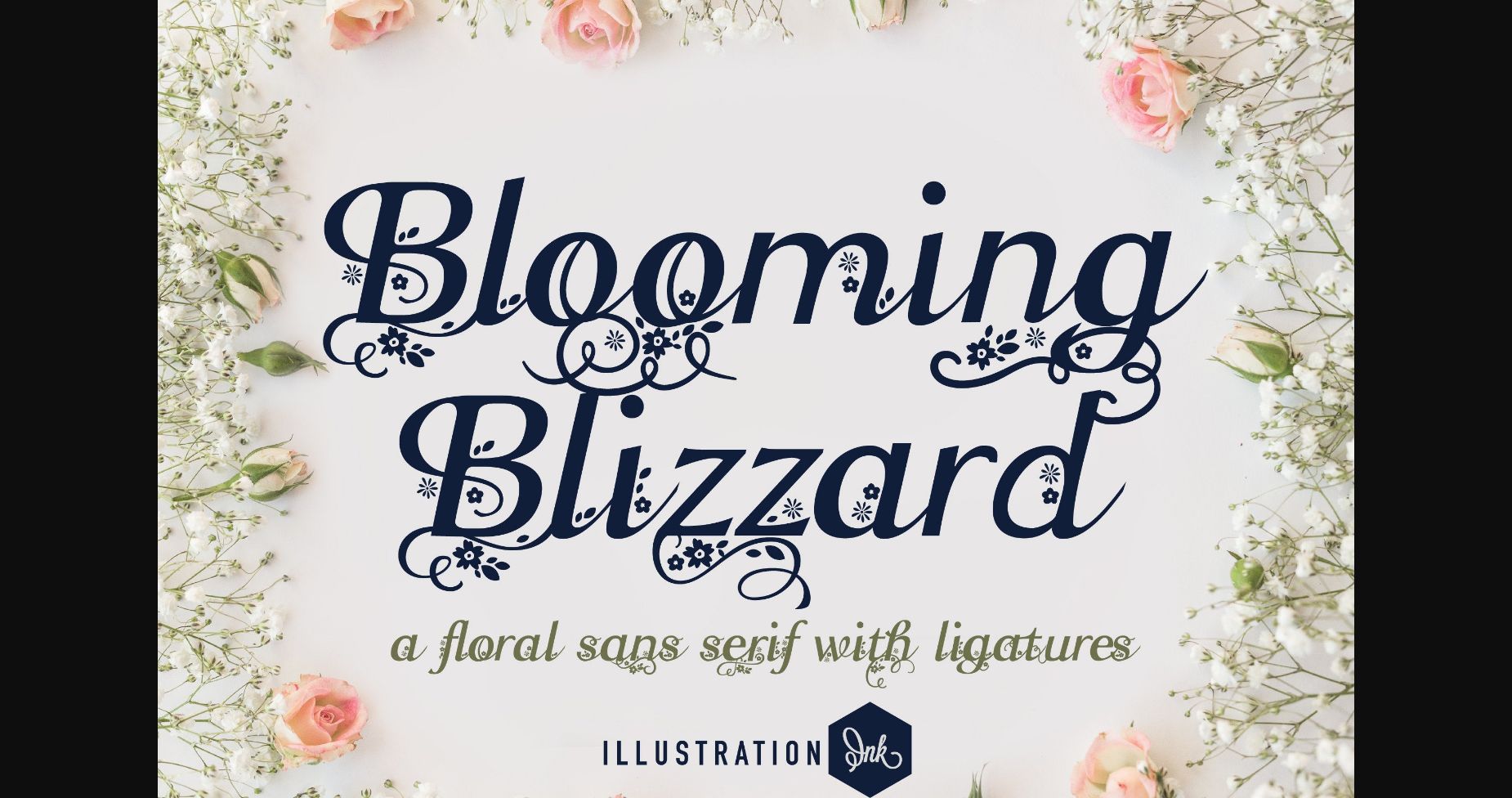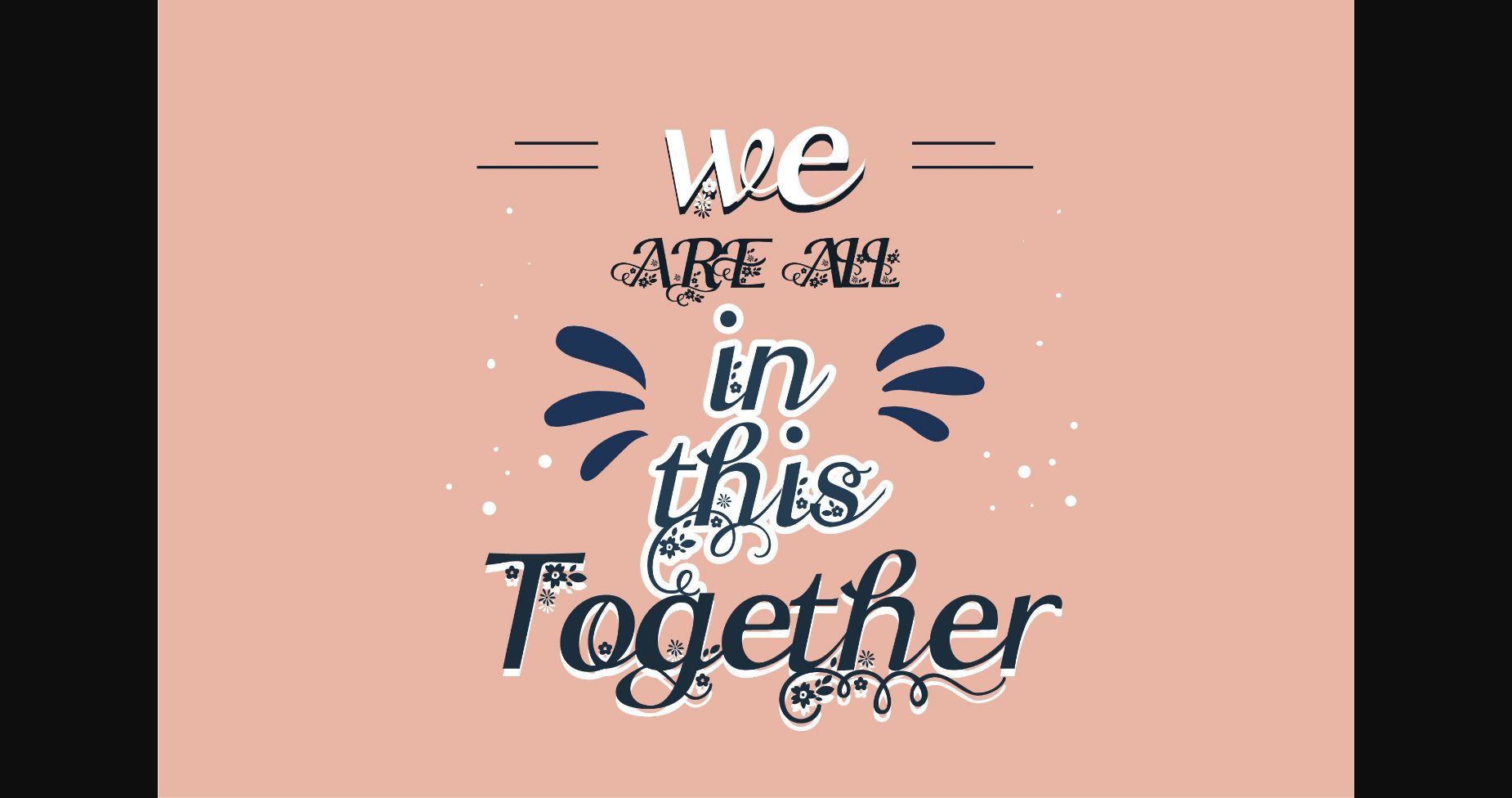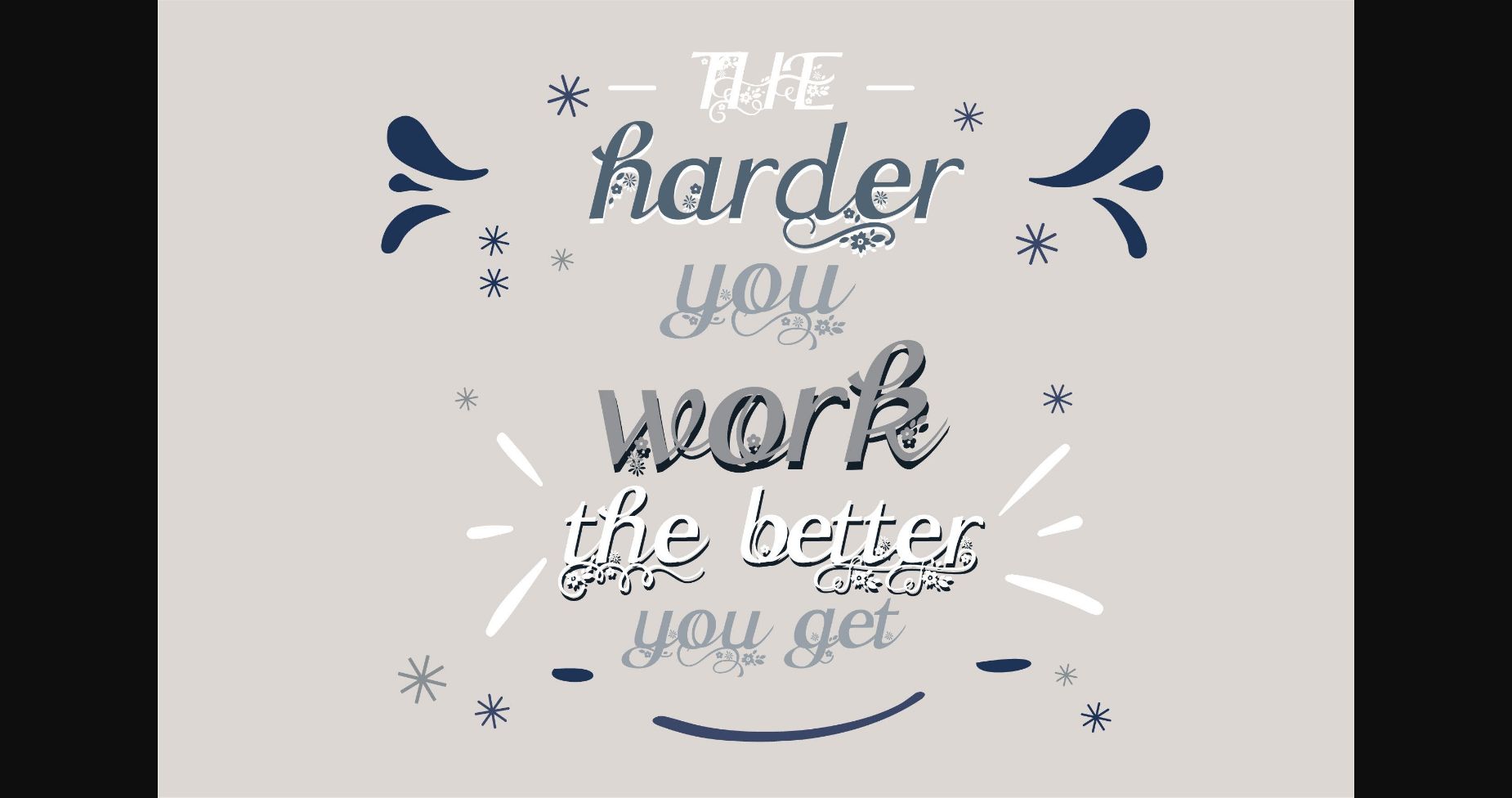
About Blooming Blizzard Font
Blooming Blizzard is a fun and cool sans serif font. This unique quasi-script typeface has flowers throughout and blizzards of blooms available on many letters and even more ligatures. Add it confidently to your projects and you will be amazed by the outcome generated!